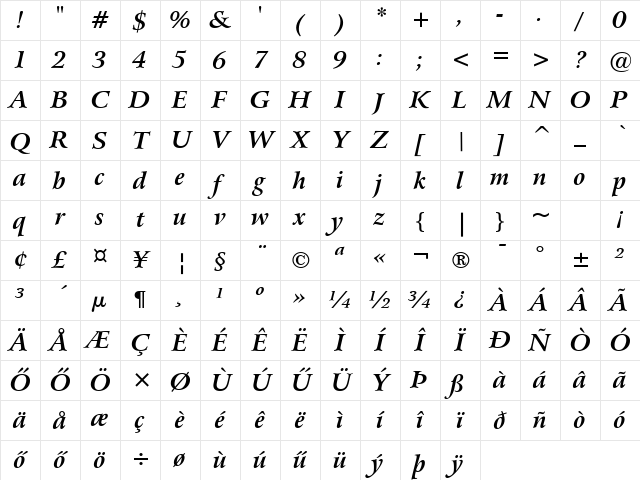
Arrus HU Bold Italic
Design Context for Arrus HU
Arrus HU is a composed and adaptable typeface that performs quietly and consistently across a wide range of design contexts. The slanted form adds forward momentum and visual energy. Its bold stroke weight gives it real presence on the page.